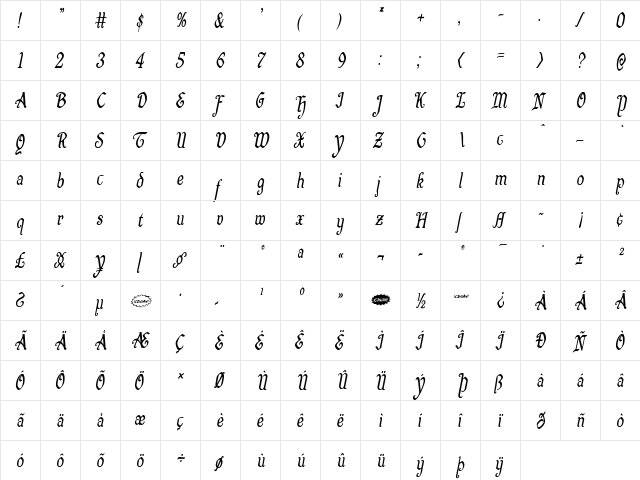
Quill Sword Condensed Italic Font Preview
Design Context for Quill Sword Condensed Italic Typeface
Quill Sword Condensed Italic takes a measured approach to typography — its balanced proportions and neutral character make it a reliable workhorse for both digital and print work. Its italic angle brings a sense of urgency and motion to the letterforms. Its narrow stance lets it pack a punch even in space-constrained designs.
Pro Tip: Use Quill Sword Condensed Italic for emphasis, pull quotes, and subheadings where its slanted energy can add rhythm to the layout.